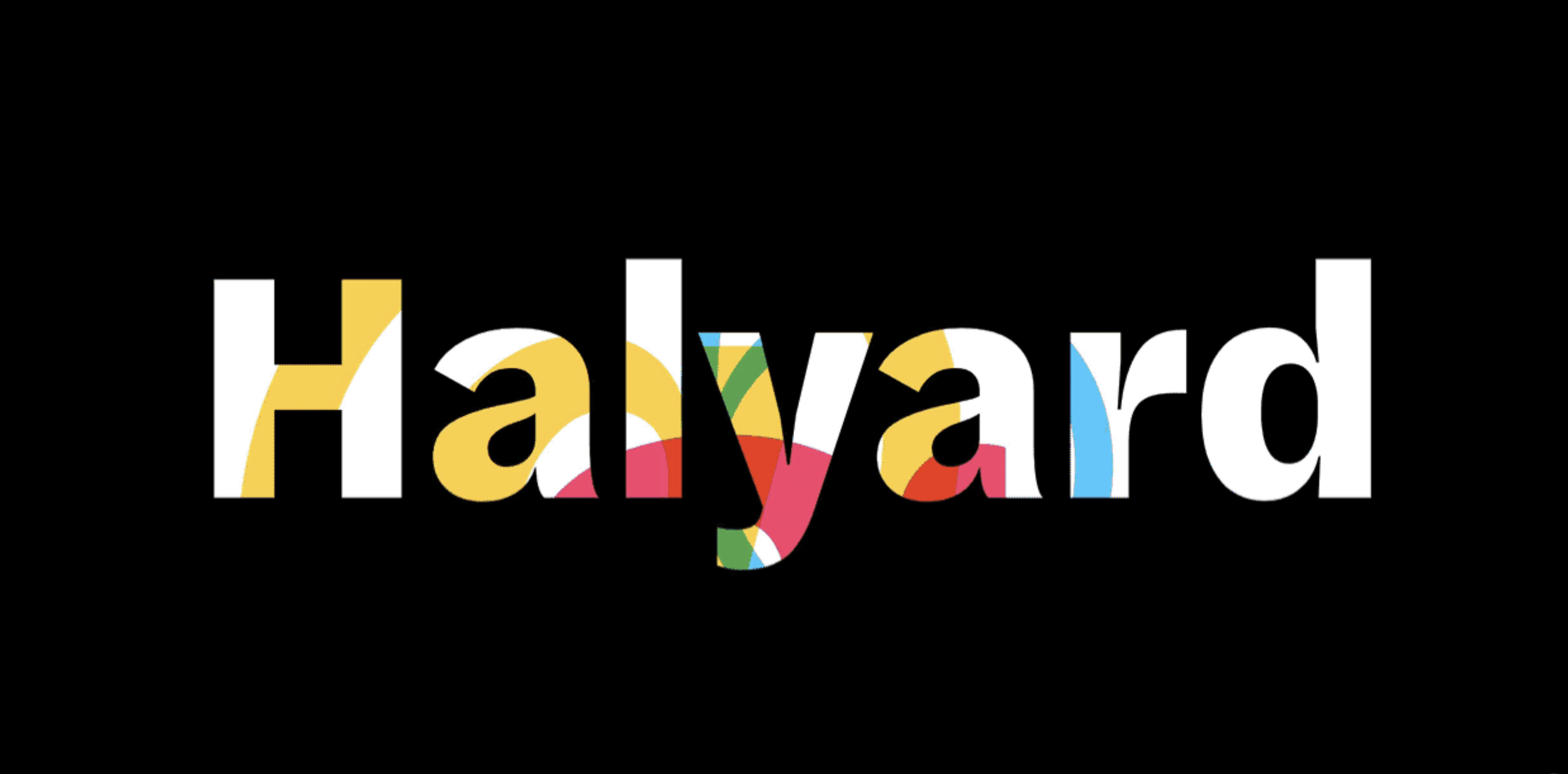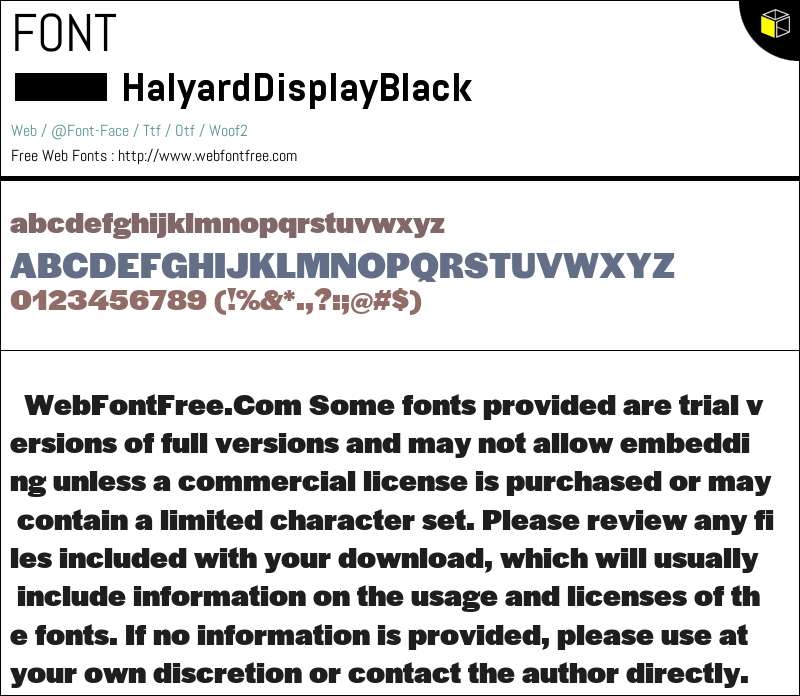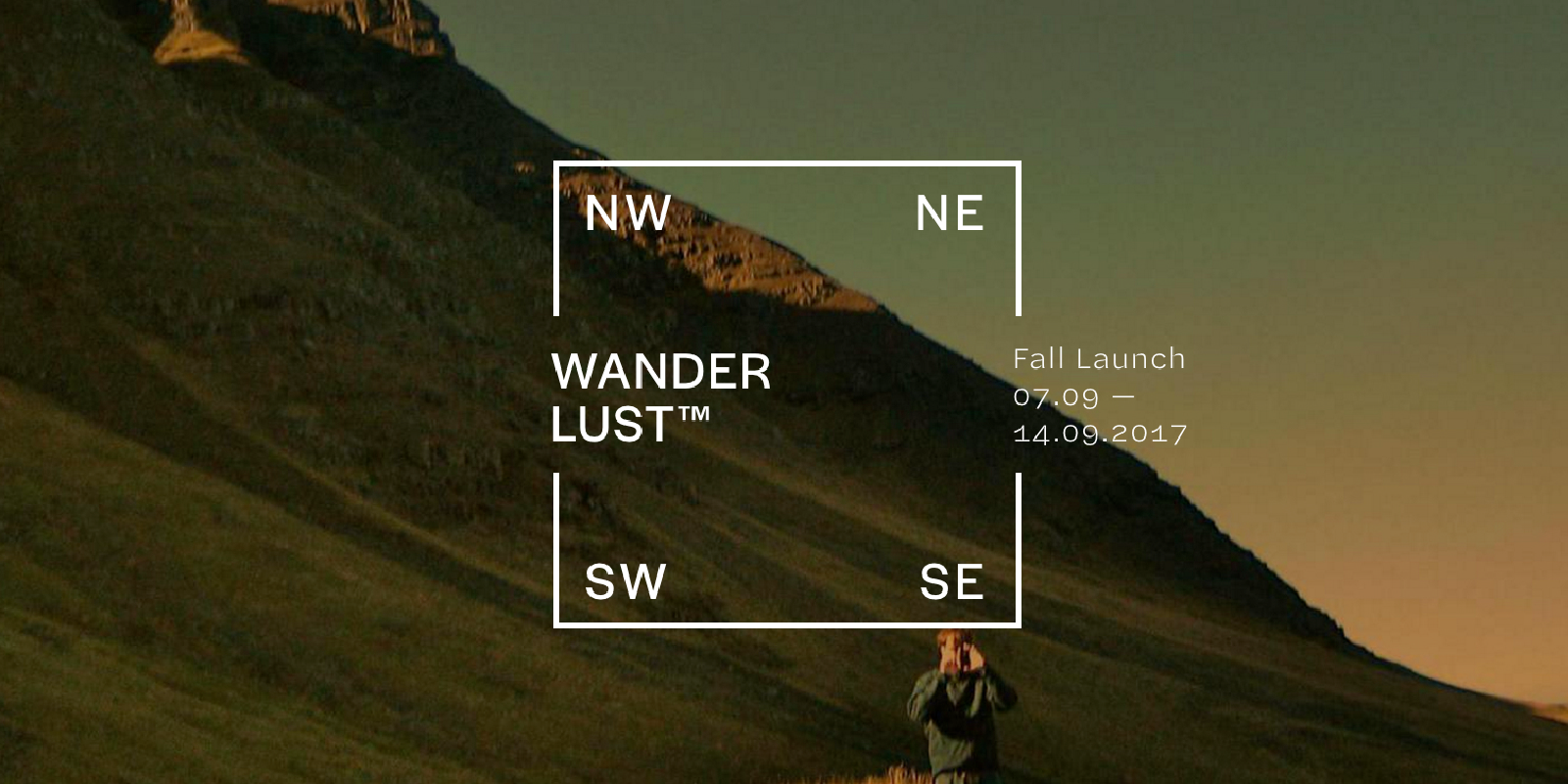
Halyard® Branding Font, Sans Serif Darden Studio
Web halyard display font family series mainly provide regular and other font styles. Web information about the font halyard display from darden studio, and where to download it. Web halyard font family radically extends the typographic utility of the now hyper ubiquitous category: Web halyard display medium regular version 0.001 font (font family name:
Download Halyard Display Font Free - Web halyard font family radically extends the typographic utility of the now hyper ubiquitous category: Web information about the font halyard display from darden studio, and where to download it. Web halyard display font family series mainly provide regular and other font styles. Fontstand allows trying halyard display typeface for free or renting it for just a fraction of the.
Download Halyard Display Font Free - Web onlinewebfonts.com is internet most popular font online download website,offers more than 8,000,000 desktop and web font products for. Web halyard font family radically extends the typographic utility of the now hyper ubiquitous category: Web halyard display medium regular version 0.001 font (font family name: Web thousands of designers (famous or not) use the image font detection system to find.
Download Halyard Display Font Free - Fontstand allows trying halyard display typeface for free or renting it for just a fraction of the regular. Web information about the font halyard display from darden studio, and where to download it. Web halyard font family radically extends the typographic utility of the now hyper ubiquitous category: Web halyard display medium regular version 0.001 font (font family name: Web.